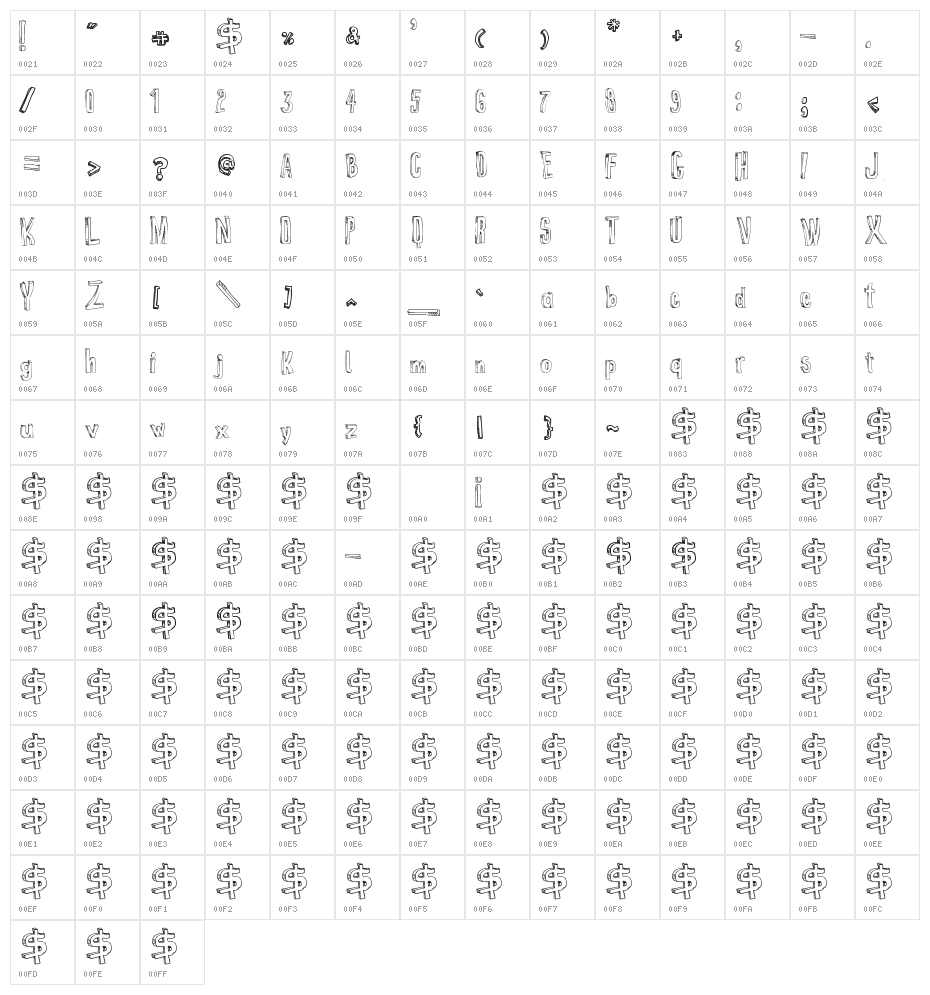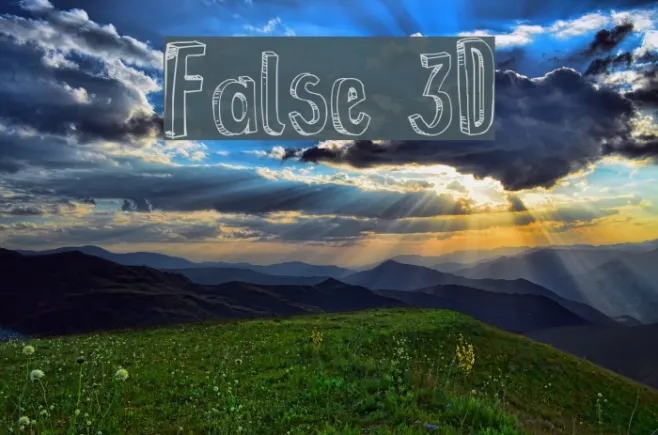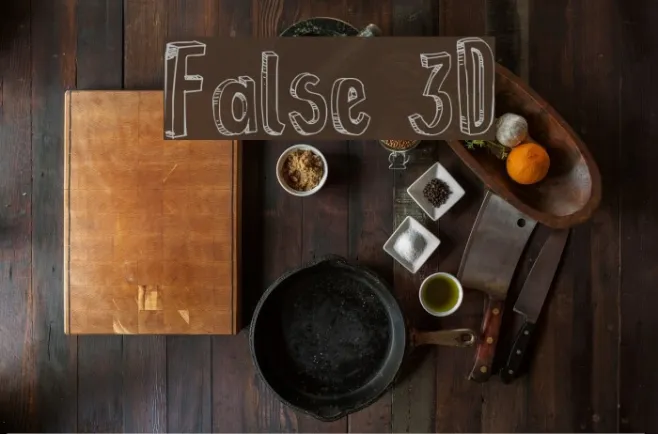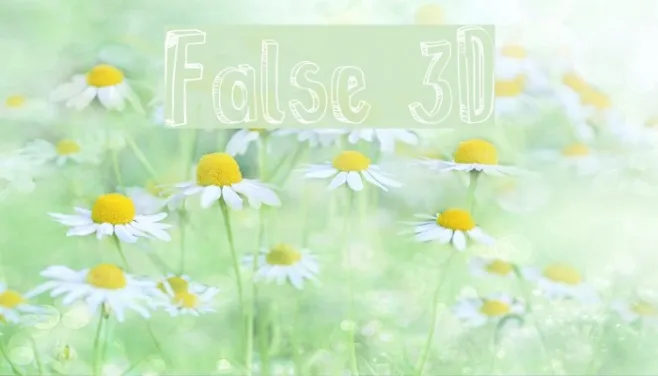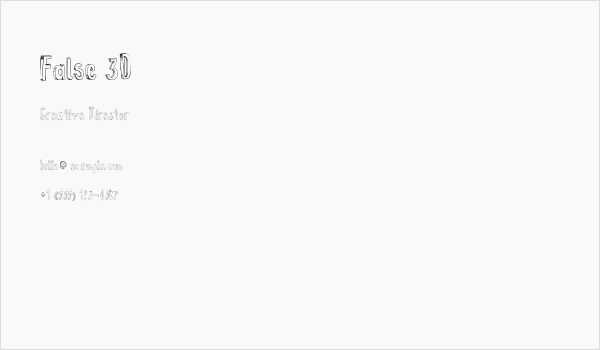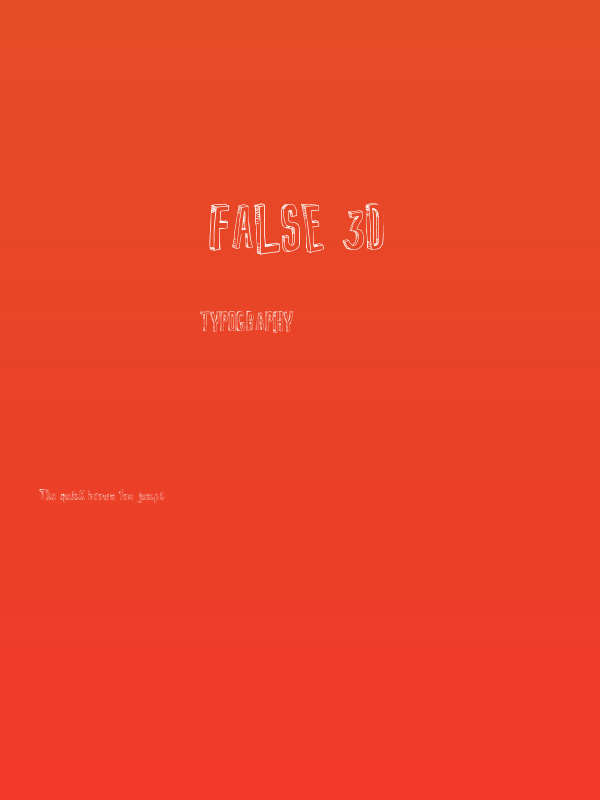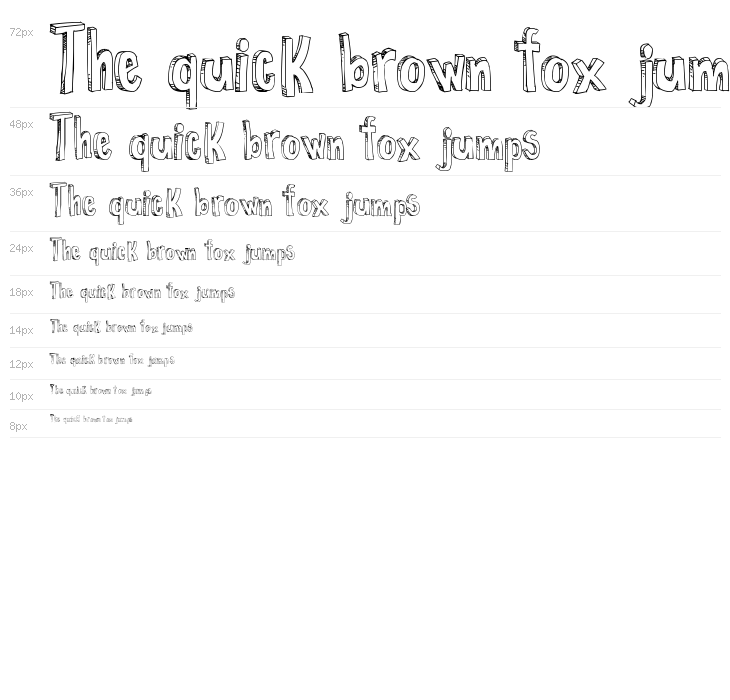
False 3D Font
False 3D Description
This font features a playful, hand-drawn style with a three-dimensional effect. Each character is outlined with a sketch-like quality, giving it a whimsical and artistic appearance. The letters have a consistent height but vary slightly in width, enhancing the casual and informal feel. The numbers and special characters maintain the same artistic style, ensuring a cohesive look across all elements. This font is perfect for projects that require a fun and creative touch, such as children's books, comic strips, or playful branding.
| Overall Style | Whimsical and Artistic |
| Proposed Projects | Ideal for children's books, comic strips, playful branding, and creative posters. |